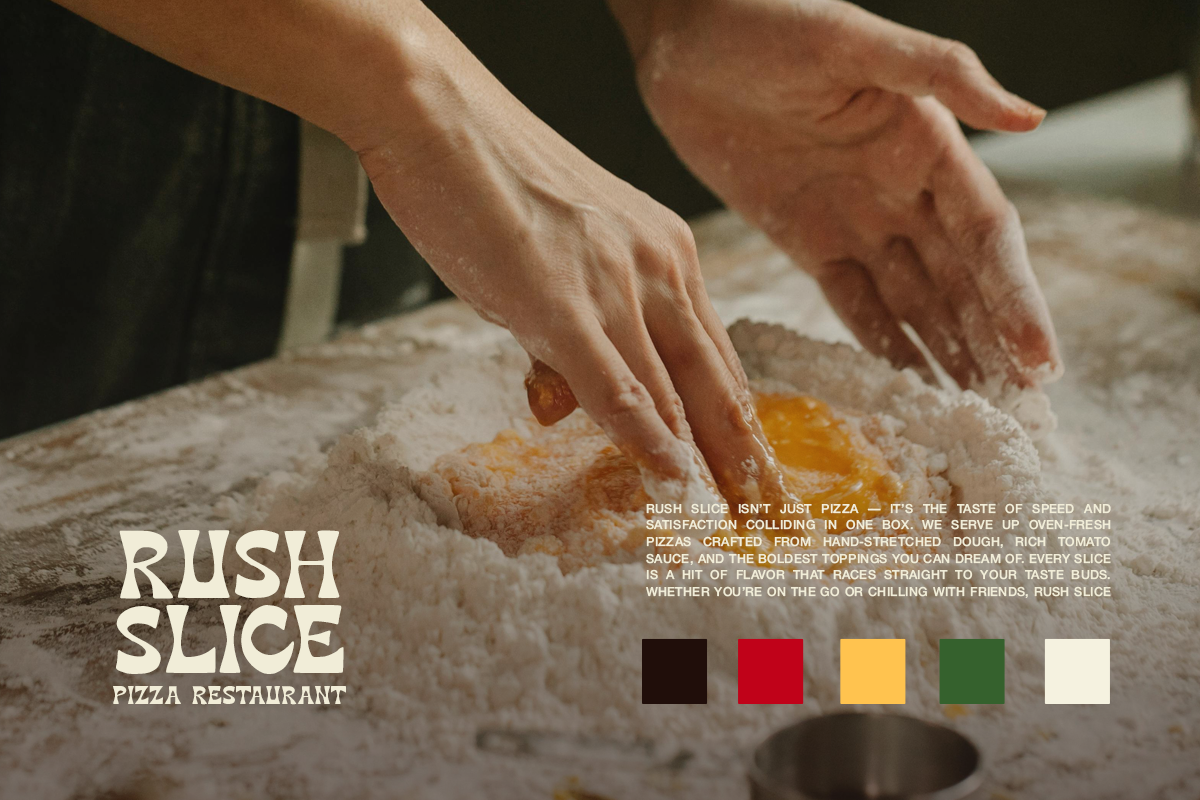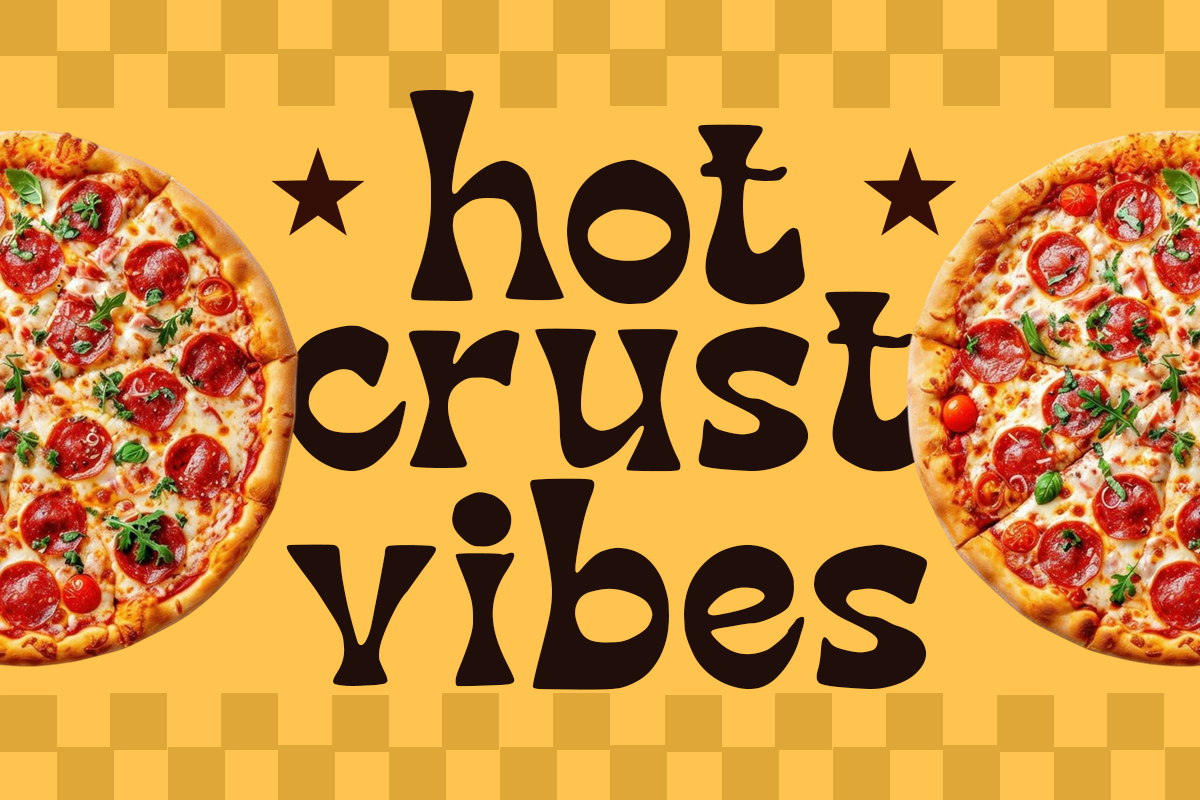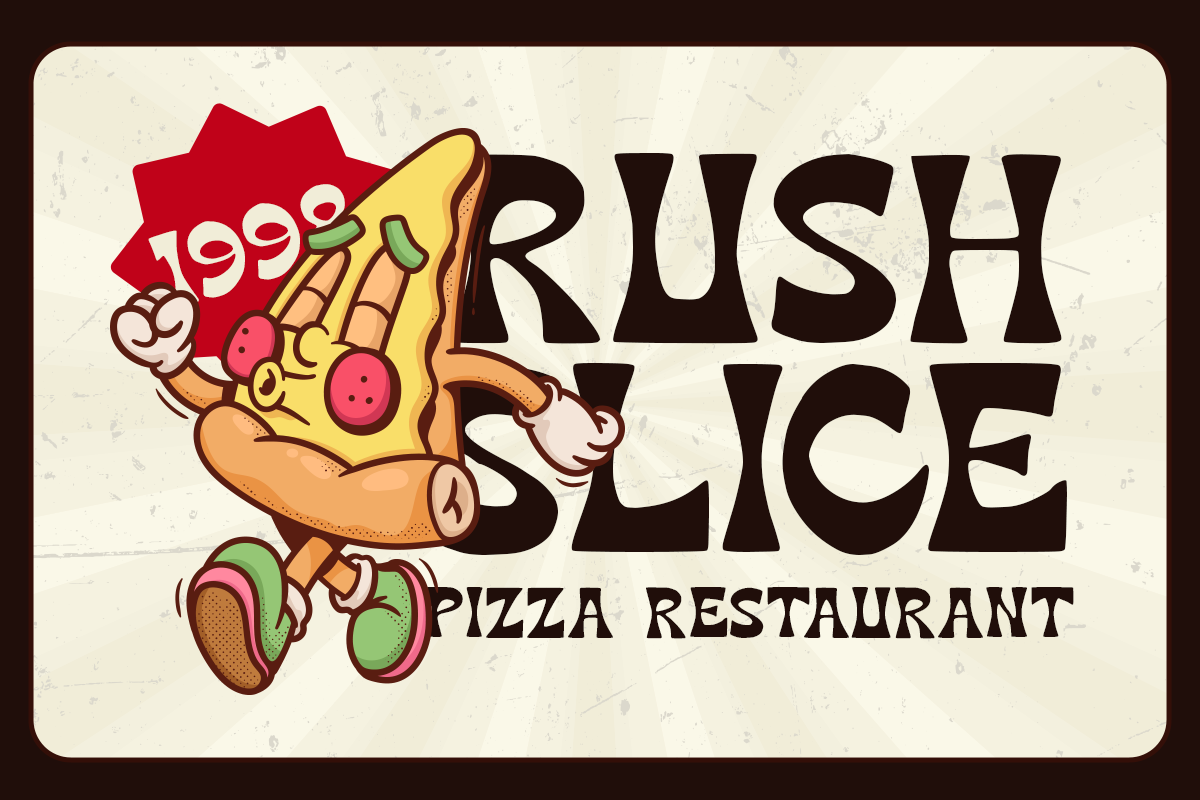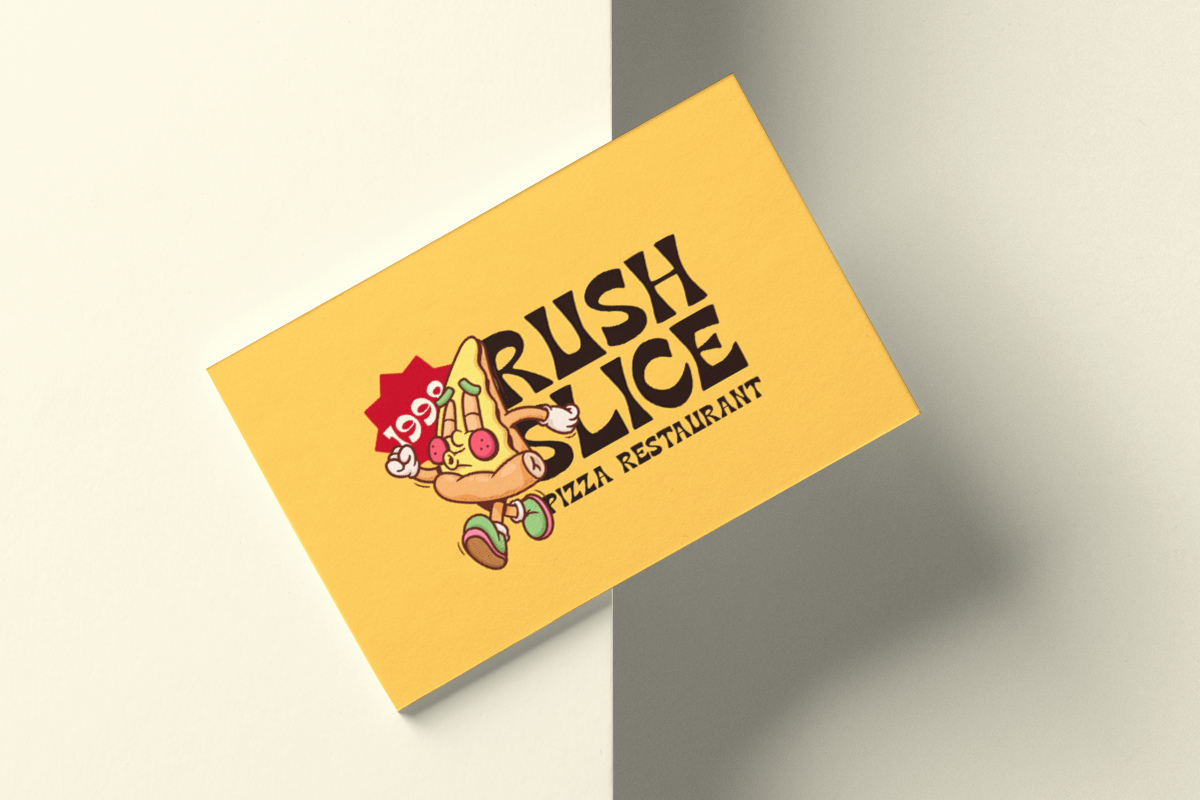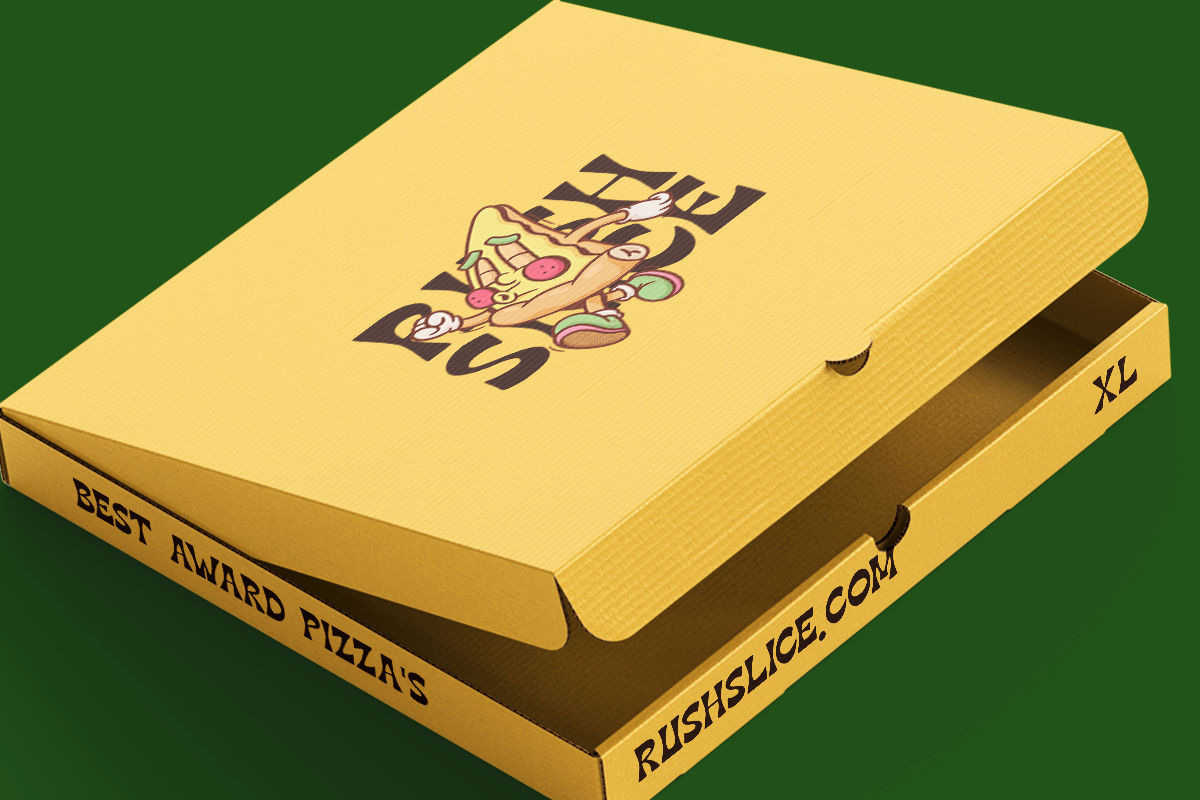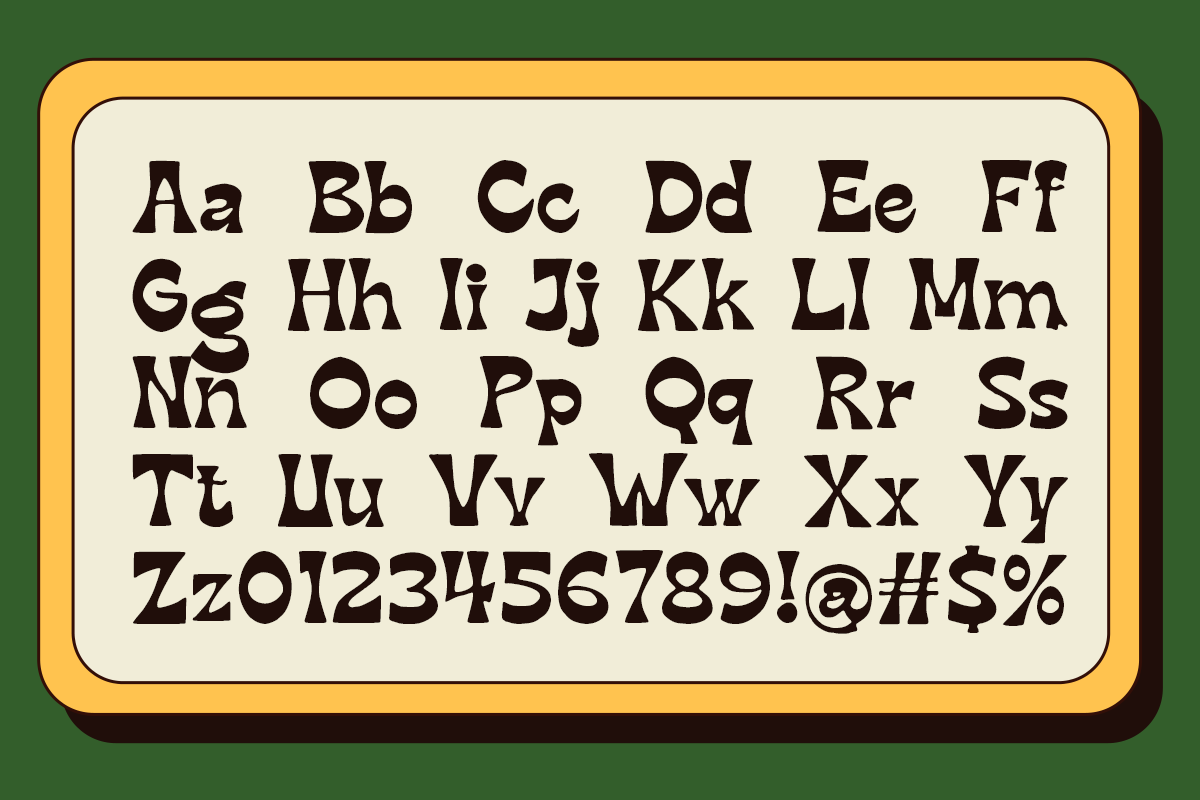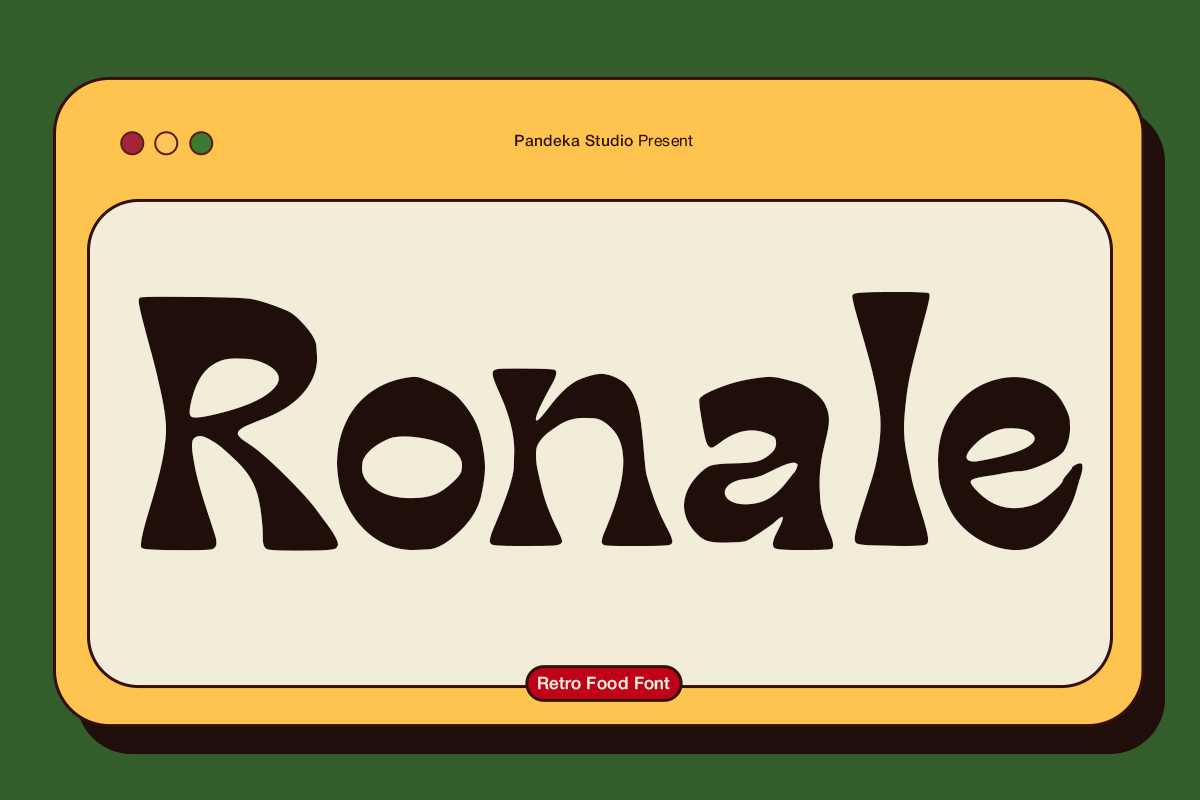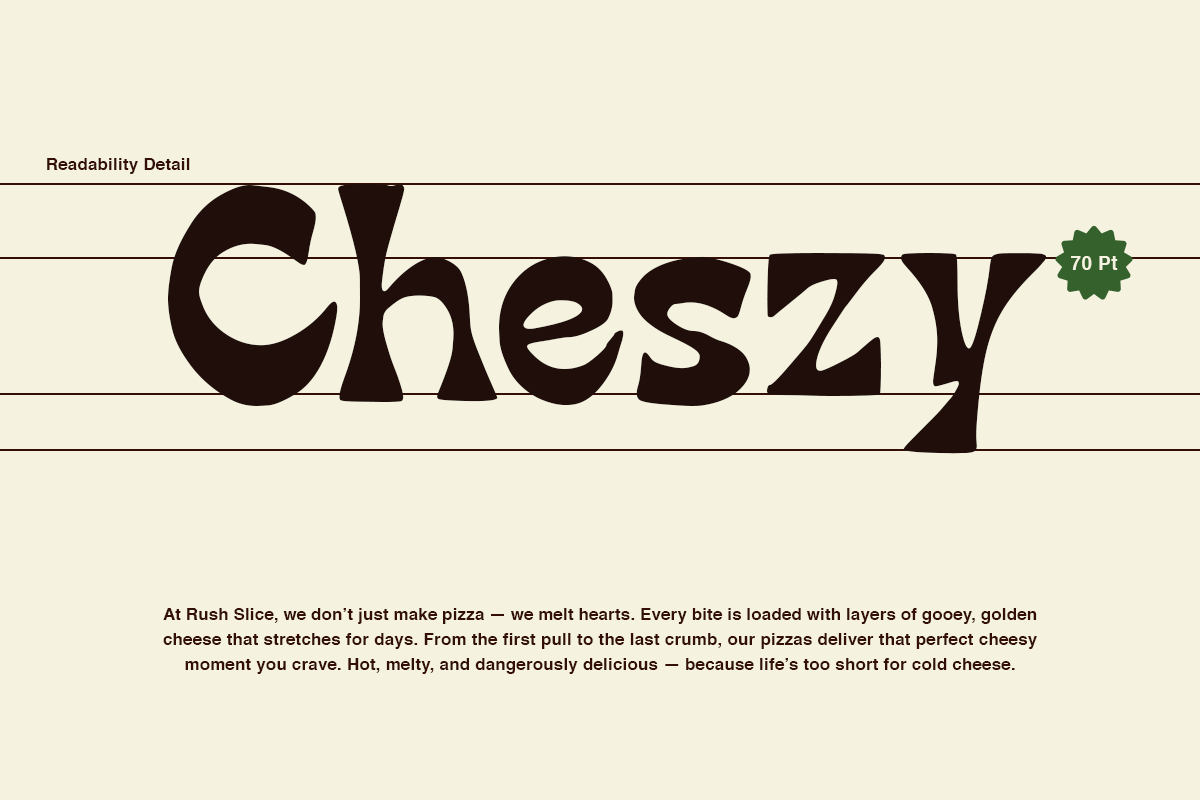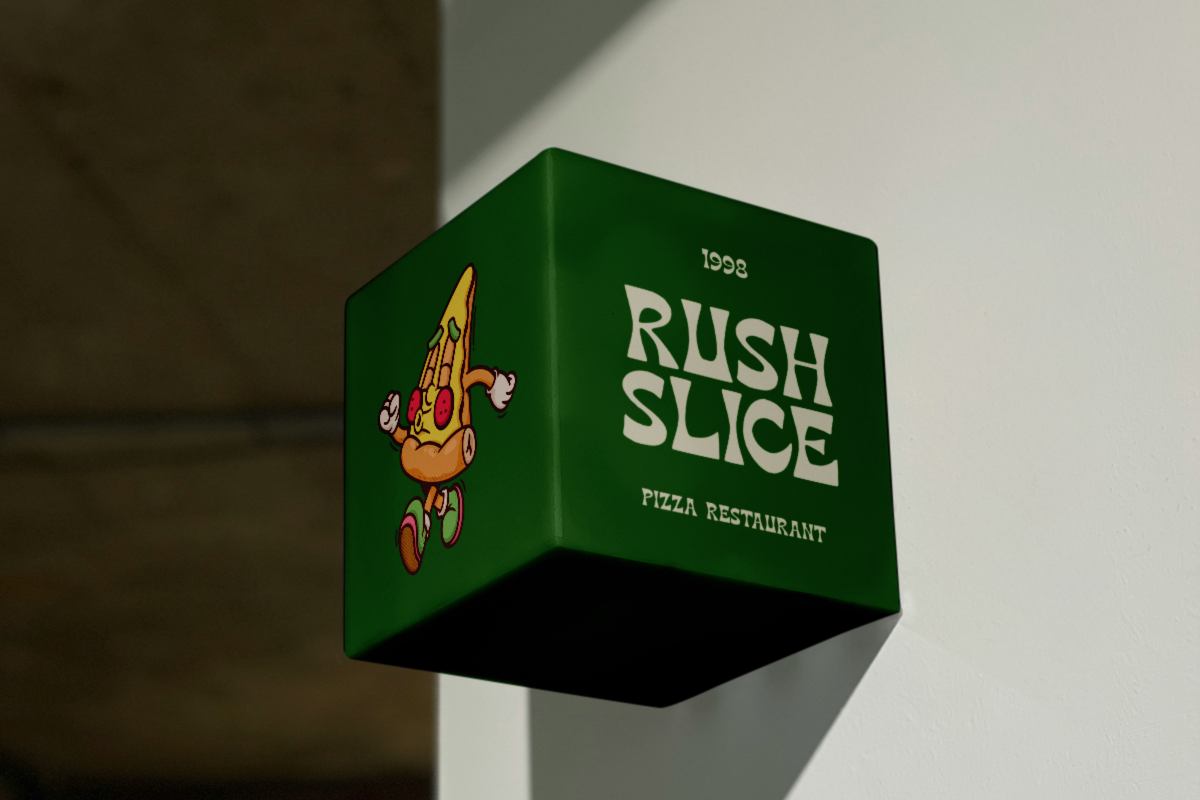
Ronale - Retro Food Font
Ronale is a bold and playful retro-style display font inspired by vintage diner and food typography. With its curvy forms and nostalgic personality, Ronale captures the warmth and fun of classic restaurant signage, making it perfect for food branding, packaging, cafe logos, and retro-themed projects.
This font comes in 1 style: Regular, featuring uppercase and lowercase letters, numbers, punctuation, and multilingual support. Ronale’s friendly curves and strong presence make it ideal for menus, posters, logos, product packaging, and any creative work that needs a delicious retro vibe.
- 1 Style: Regular
- Full Character Set: Uppercase, lowercase, numbers, symbols, and punctuation